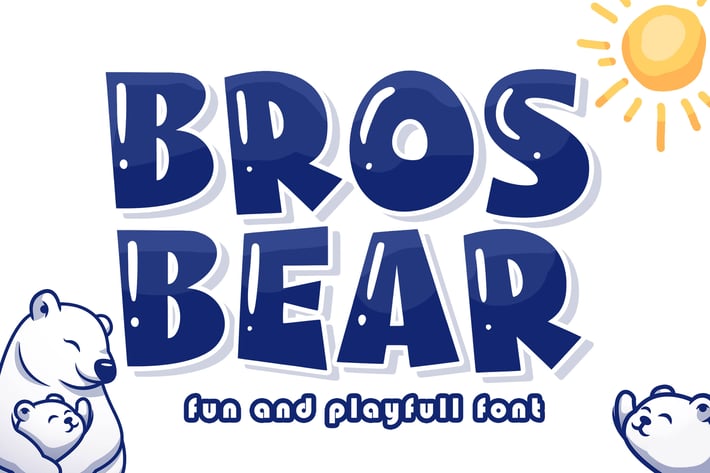
Bros Bear Friendly Logo Font
Bros Bear is Unique Modern Font . It can easily be matched to an incredibly large set of projects, so add it to your creative ideas and notice how it makes them stand out!